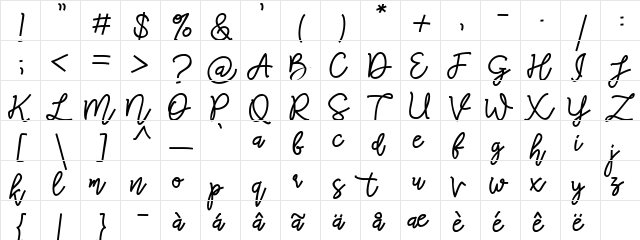
RED Peppers Script Regular
Design Context for RED Peppers Script Typeface
RED Peppers Script flows with the natural rhythm of handwritten lettering, making it ideal for designs that call for warmth and personal expression.